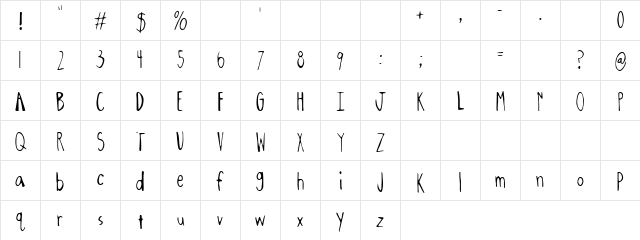
Oxalic Regular Free Font
Oxalic Regular
Design Context for Oxalic
Oxalic is a composed and adaptable typeface that performs quietly and consistently across a wide range of design contexts.